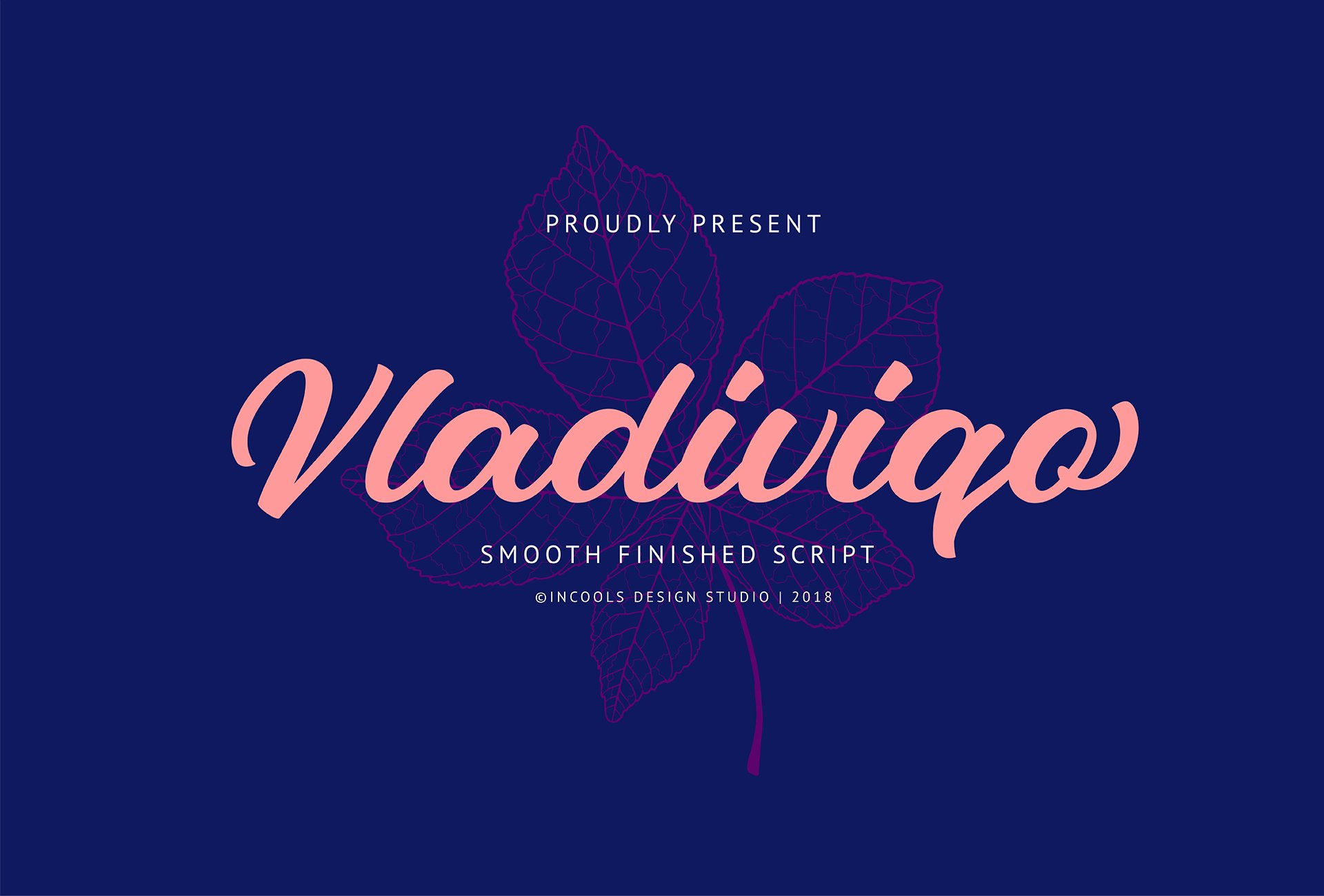
Vladiviqo Script
Vladiviqo Script Font
an awesome, clean, smooth finished script created carefully with full lotta love. Vladiviqo comes with Uppercase, Lowercase, Punctuation and all the symbol you have ever need. Of course it come with alternates for sure.